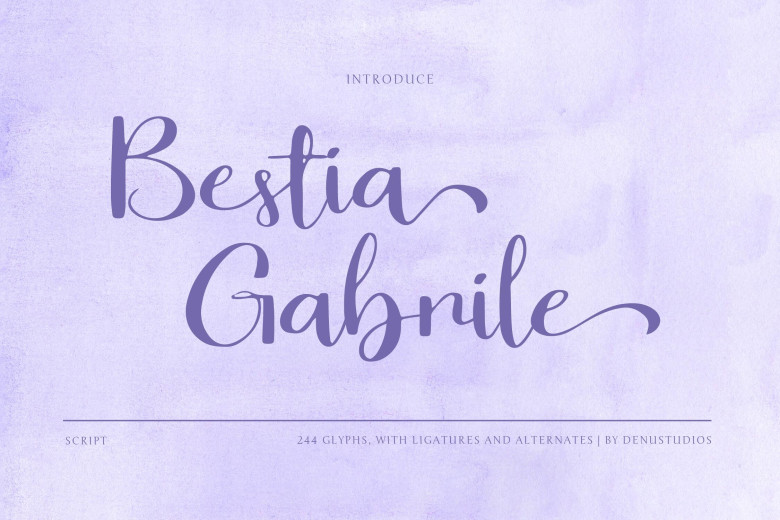
Bestia Gabrile is a striking, sophisticated handwritten script font which stands out with its beautiful letterforms and engaging letters. Blending classic with contemporary styles, Bestia Gabrile exudes class while exuding individuality and elegance, making it the ideal font choice for invitations, creative ideas, branding needs or other creative projects.
Bestia Gabrile Handwritten Script Font